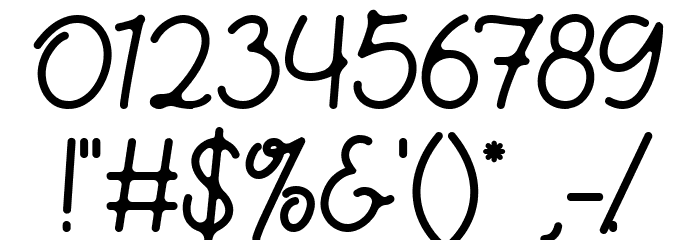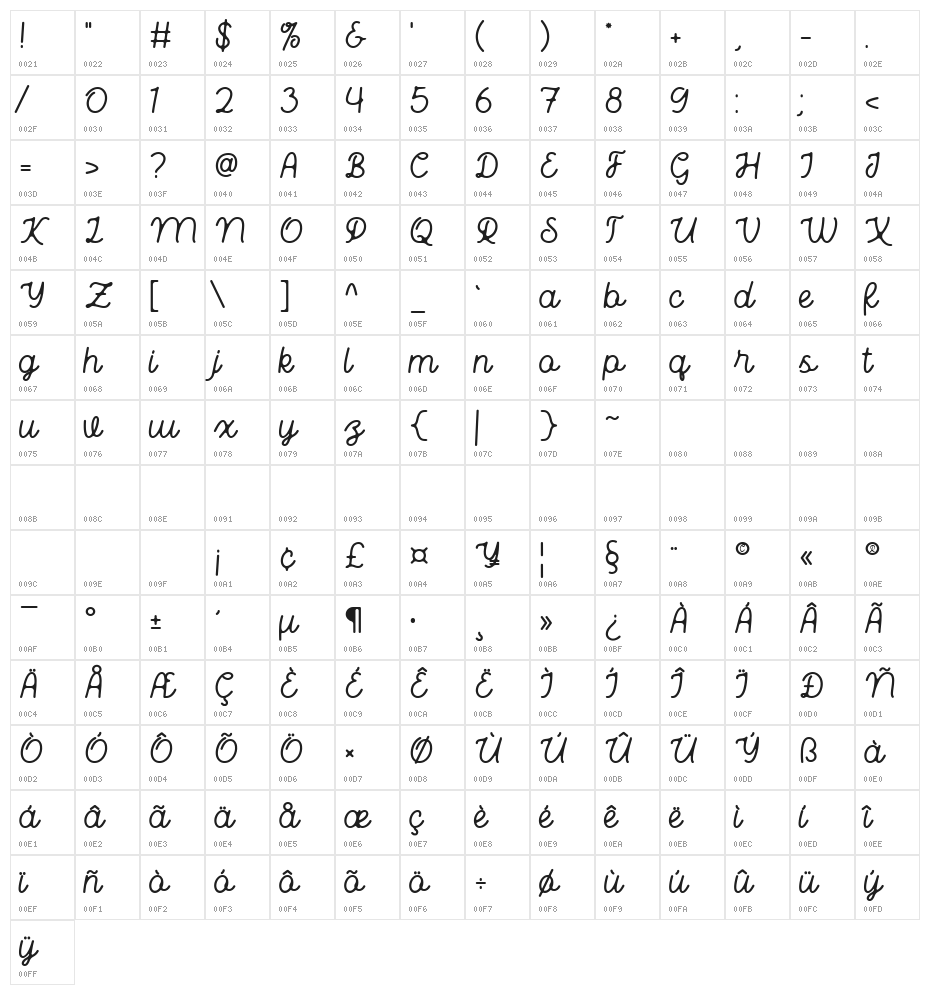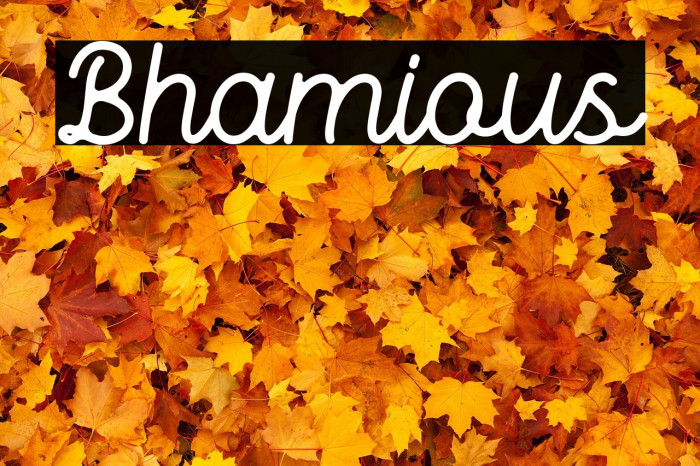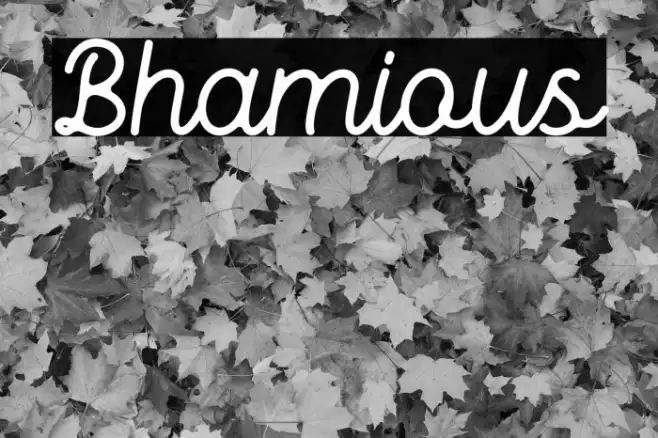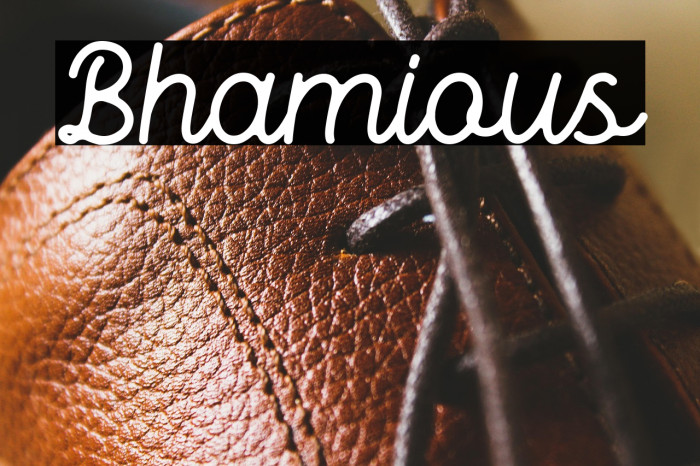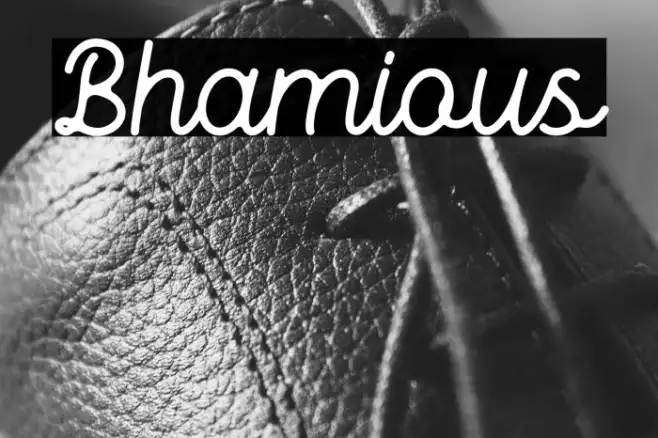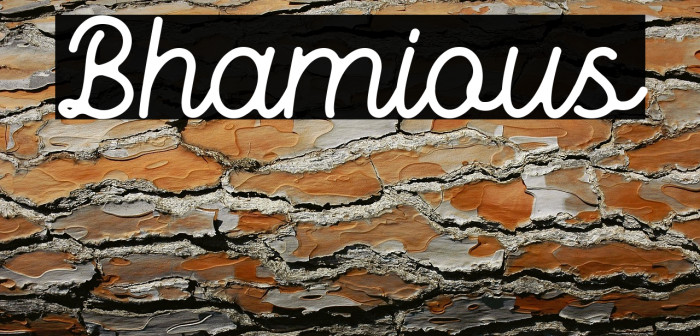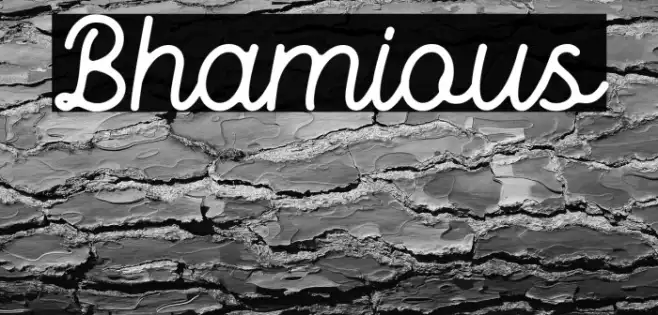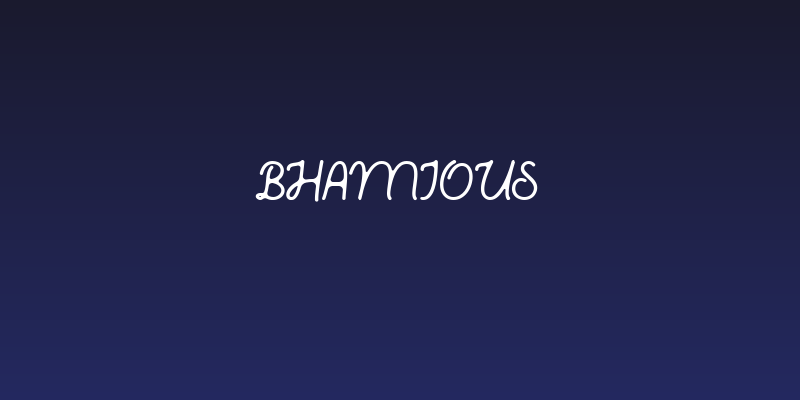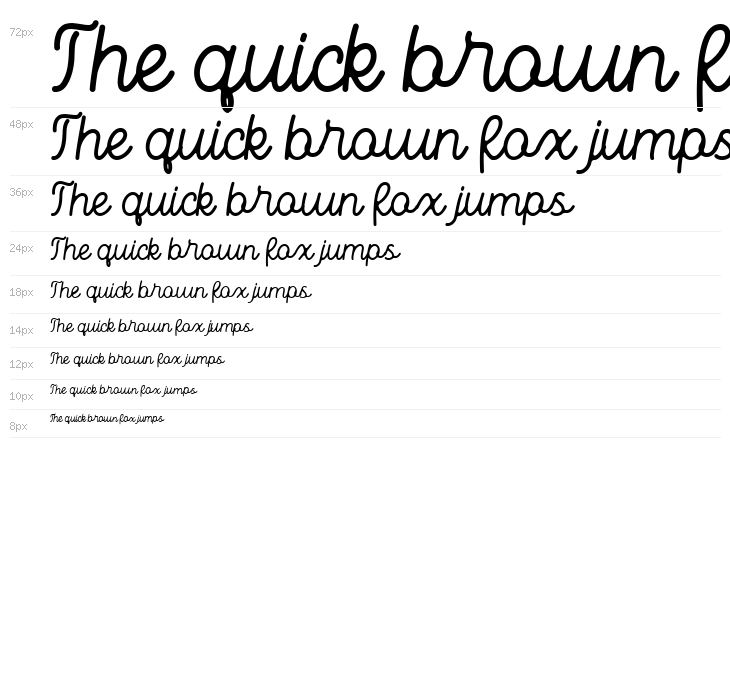
Bhamious Font
Bhamious Description
This font features a playful and casual script style with a handwritten feel. The characters are connected, giving it a fluid and continuous appearance. The uppercase letters maintain a consistent height, while the lowercase letters have a slight slant, enhancing the informal aesthetic. The numerals are rounded and maintain the same playful style, making them easily readable. Special characters are designed to match the overall script style, ensuring cohesion throughout the font. The strokes are moderately thick, providing good visibility and legibility.